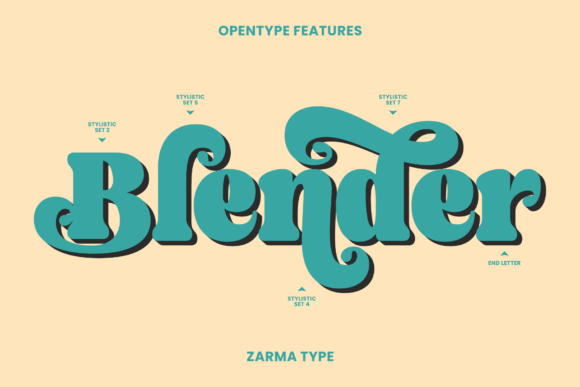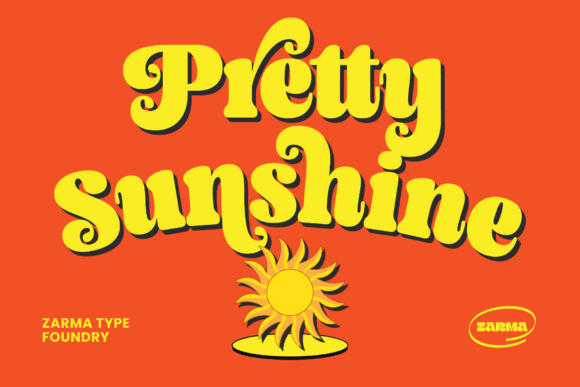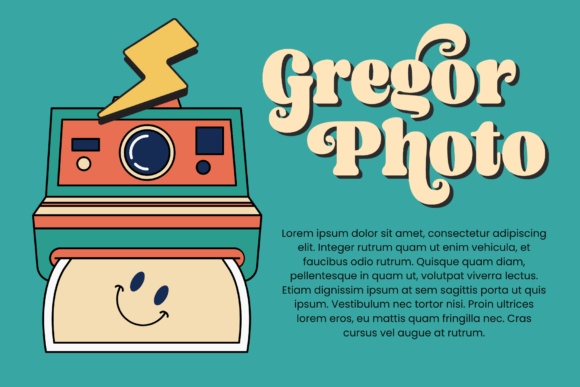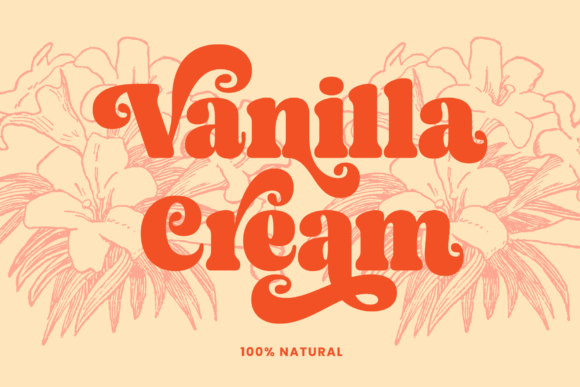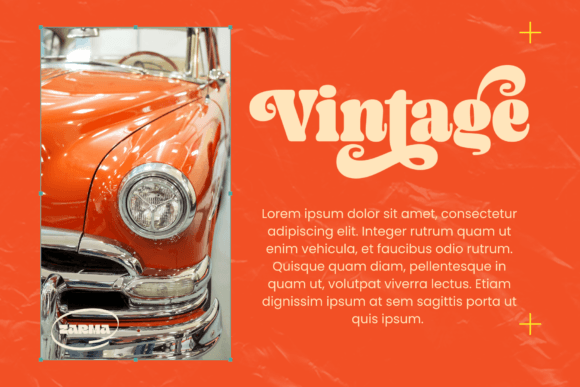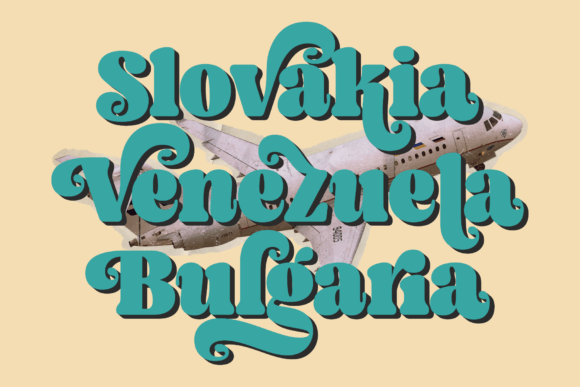
Introduction to Malrin Font
Have you ever stared at a blank canvas, struggling to bring your creative project to life? The blank page can be daunting, but the right design resource can spark inspiration. For designers seeking a unique touch, the Malrin Font is a game-changer. This high-quality, chunky retro font is inspired by the iconic ‘fatface typeface’ and embodies a groovy, funky vibe with a dash of psychedelic flair.
Perfectly suited for logos, displays, headers, and big typography, the Malrin Font is a valuable addition to any designer’s toolkit. Its PUA encoding ensures seamless access to all glyphs and swashes, making it a breeze to customize and style. Whether you’re working on a project that requires a bold, eye-catching font or a free download for a personal creative endeavor, the Malrin Font is an excellent choice.
With its versatility and high-quality design, the Malrin Font is an ideal choice for designers looking to elevate their work with a unique and professional touch.
Honest Review: Malrin Font
I recently stumbled upon the Malrin Font, a high-quality design resource that caught my attention. As a designer, I’m always on the lookout for unique and creative fonts to enhance my projects. In this review, I’ll share my honest thoughts on the Malrin Font.
- ✨ The font’s sleek and modern design makes it perfect for a wide range of creative projects, from digital graphics to print materials.
- ✨ The transparent background option allows for seamless integration with any design, making it easy to customize and style.
- ⚠️ The font’s legibility can be a bit tricky in certain font sizes, so be sure to test it thoroughly before using it in a project.
- ⚠️ The font family is relatively small, so it may not be ideal for projects that require multiple font styles.
Overall, I’m impressed with the Malrin Font’s potential and versatility. While it may have some limitations, it’s definitely a valuable addition to any designer’s toolkit. If you’re looking for a high-quality, free font to enhance your creative project, the Malrin Font is definitely worth considering.
Malrin Font: A High-Quality Design Resource
Tips for Getting the Most Out of the Malrin Font
Use the Malrin Font in conjunction with other design elements, such as images and graphics, to create visually appealing designs. Experiment with different font sizes and colors to find the perfect look for your project. The Malrin Font’s transparent background makes it easy to layer with other design elements.
The Malrin Font is perfect for a variety of creative projects, including logos, business cards, and social media graphics. Its high-quality design and transparent background make it ideal for designers who want to create professional-looking designs without a lot of fuss.